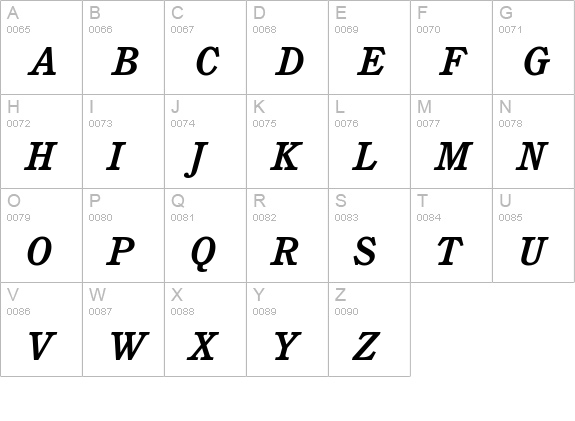
Calgary-BoldItalic is a visually striking and modern font that exudes confidence and sophistication. Its bold and slanted design adds a touch of elegance to any project, making it perfect for headlines, logos, and branding materials. The strong and dynamic curves of this font convey a sense of energy and style, while its italicized form adds a unique and artistic flair. What makes Calgary-BoldItalic even more appealing is that it is available for free download at FontsMarket.com. This means that you can easily access and use this premium font without any cost, making it a valuable addition to your design toolkit. Whether you are a professional designer looking for a versatile and eye-catching typeface or a creative individual seeking to elevate your projects, Calgary-BoldItalic is sure to make a bold statement and leave a lasting impression. Download it today and unleash your creativity with this stunning font!